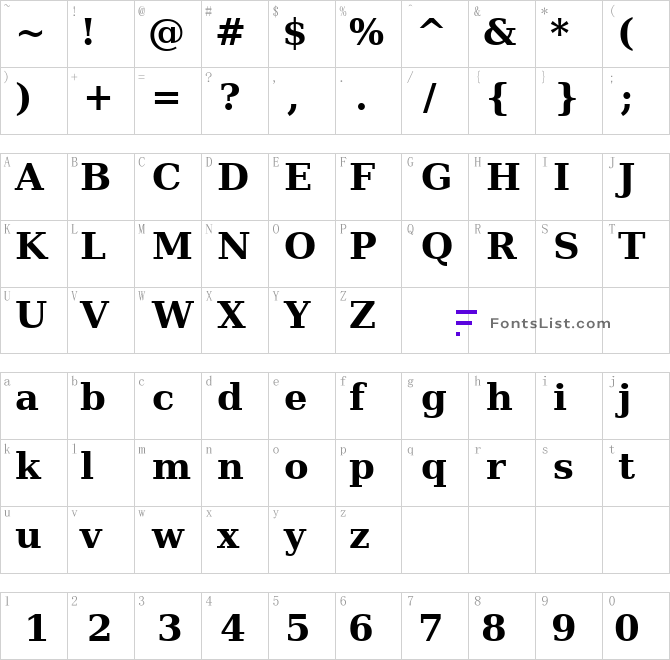
- Font Name:ae_Mashq
ae_Mashq-Bold.ttf is a very beautiful artistic font, ae_Mashq-Bold.ttf is widely used in the design and printing of various books and pictures,ae_Mashq-Bold.ttf has a strong visual impact,ae_Mashq-Bold.ttf is a commonly used font in newspapers, magazines and books, and is used in posters, e-commerce Poster design, store design, logo design, font design and other fields.ae_Mashq-Bold.